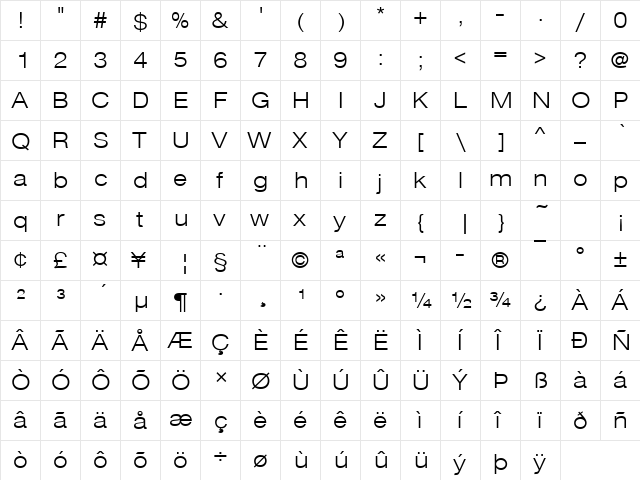
Nimbus Sans Becker DLigExt Regular Font Preview
Nimbus Sans Becker DLigExt Regular
Nimbus Sans Becker DLigExt Regular Font Details
Design Context for Nimbus Sans Becker DLigExt Typeface
Nimbus Sans Becker DLigExt takes a measured approach to typography — its balanced proportions and neutral character make it a reliable workhorse for both digital and print work.